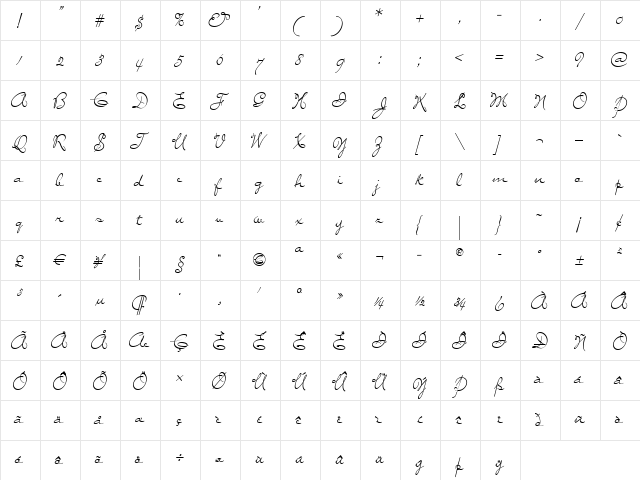
BayernHandschriftNF Medium
Design Context for BayernHandschriftNF Typeface
BayernHandschriftNF brings a calligraphic fluidity to the page — its connecting strokes and expressive curves give it an unmistakably human quality.
Font Pairing: Combine BayernHandschriftNF with a simple geometric sans for maximum contrast — the tension between flowing curves and clean structure is a classic typographic pairing.
Pro Tip: Pair BayernHandschriftNF with a clean sans-serif for supporting text. The contrast between fluid script and geometric structure creates an elegant typographic hierarchy.